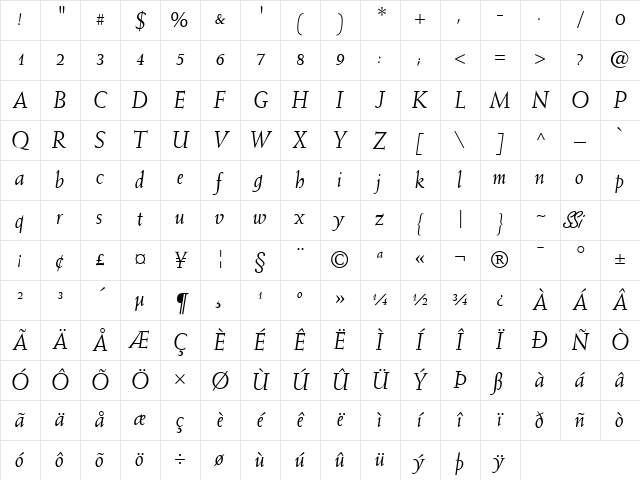
Missive SSi Italic
Missive SSi Family
Missive SSi Italic
Design Context for Missive SSi
Missive SSi is a composed and adaptable typeface that performs quietly and consistently across a wide range of design contexts. The slanted form adds forward momentum and visual energy.
Pro Tip: Use Missive SSi for emphasis, pull quotes, and subheadings where its slanted energy can add rhythm to the layout.